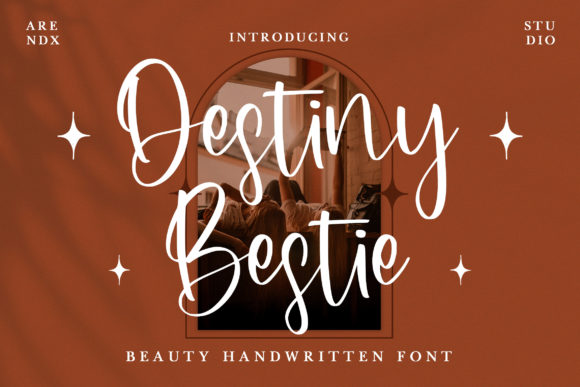
Unleash the Charm: Destiny Bestie - Your Perfect Handwriting Font
Introducing Destiny Bestie, a free-flowing script font that effortlessly captures the beauty and individuality of handwritten words. Inspired by the timeless elegance of calligraphy, this font invites you to create designs that resonate with warmth, authenticity, and a touch of whimsy.
With its graceful strokes and perfectly balanced characters, Destiny Bestie brings a unique charm to any project. Whether you're designing packaging, crafting heartfelt invitations, or creating eye-catching flyers, this font will make your words come alive.
Embark on a creative journey with Destiny Bestie and discover a world of possibilities. Let your imagination soar as you design mockups that exude sophistication, event posters that ignite excitement, and any other project that demands a touch of artistry.
Immerse yourself in the world of Destiny Bestie and unlock the true potential of your designs. Embrace the beauty of handwritten expression and create visuals that leave a lasting impression.